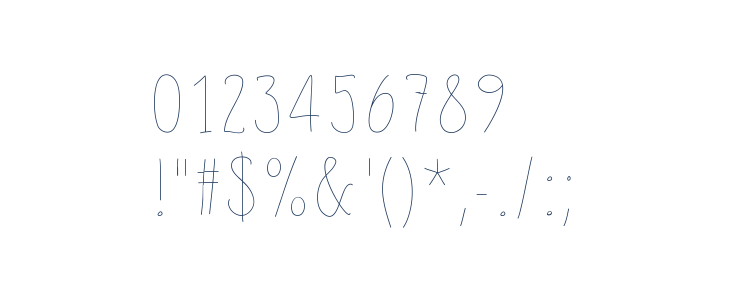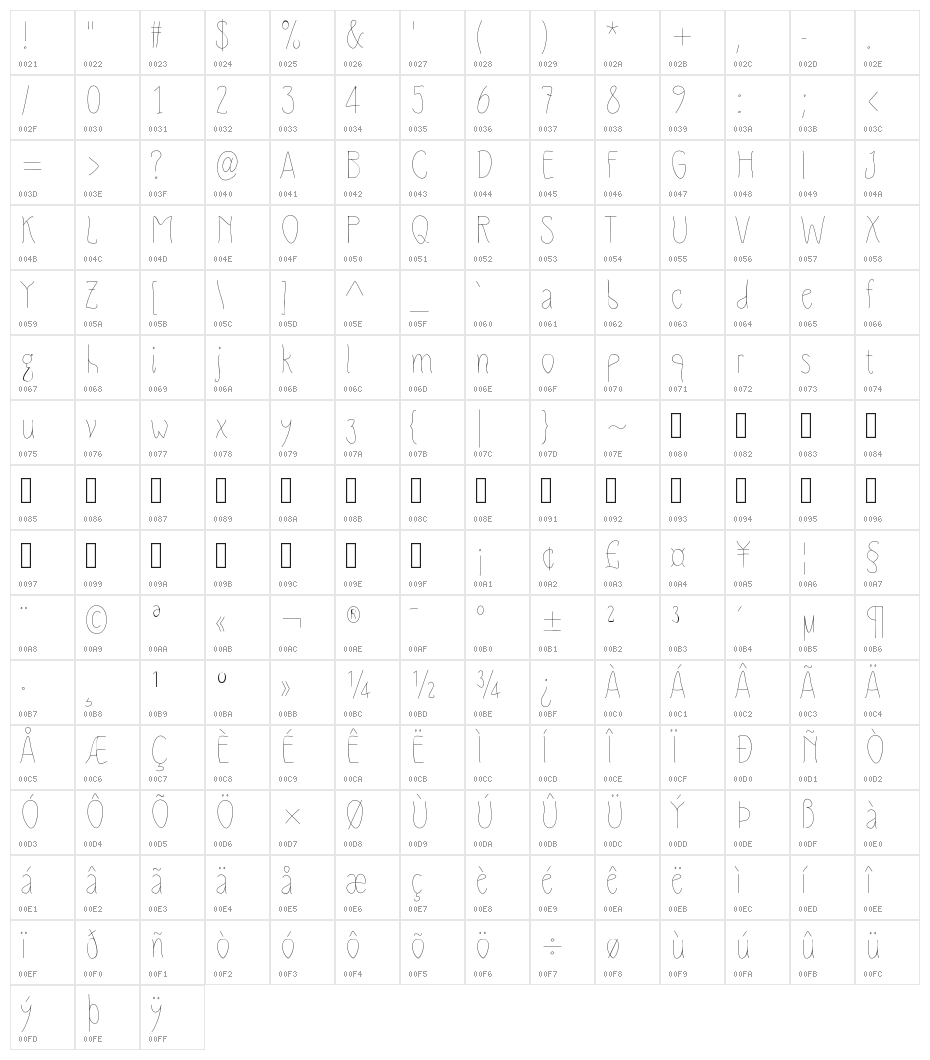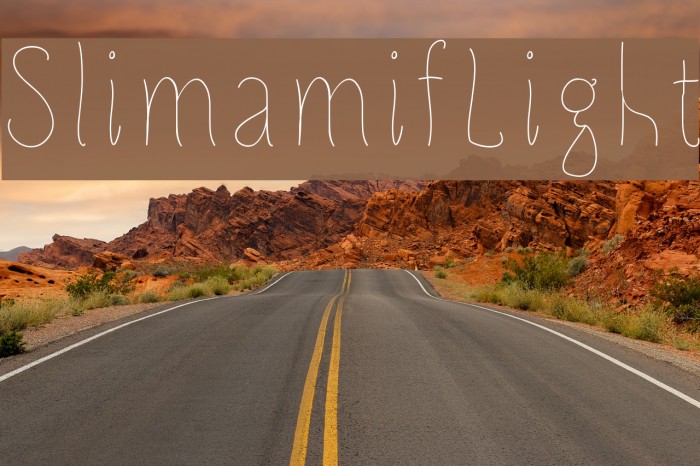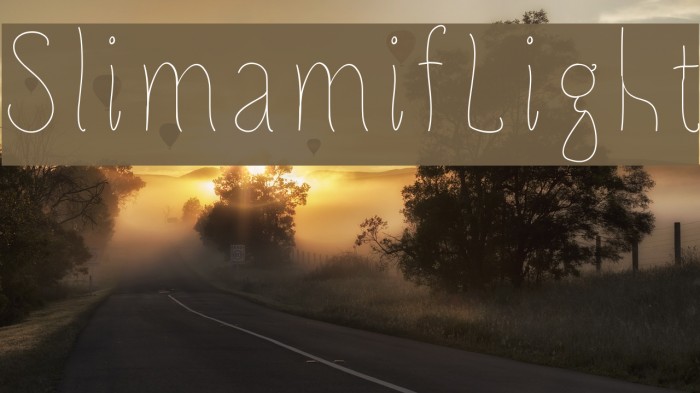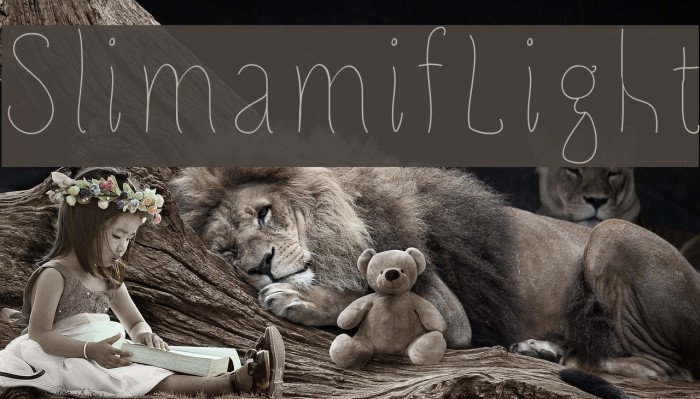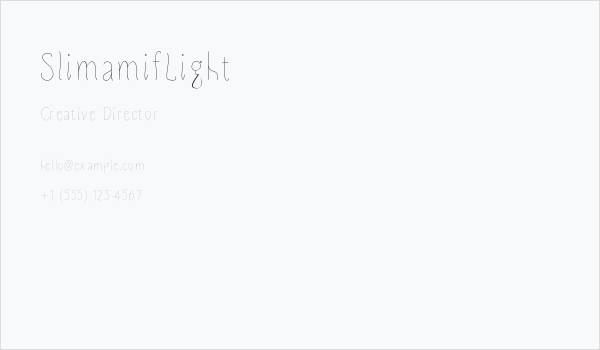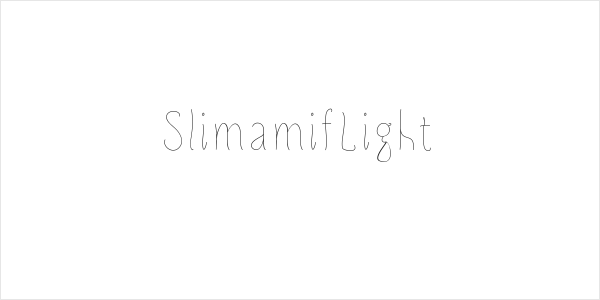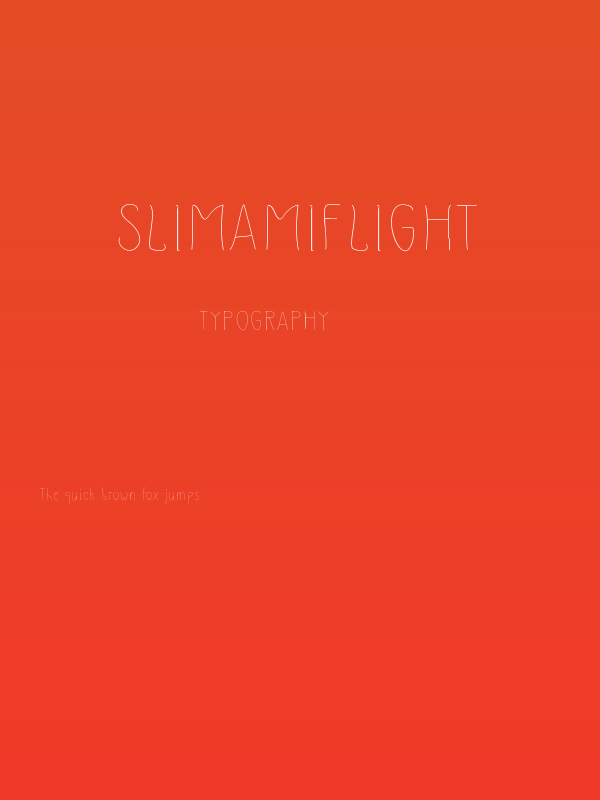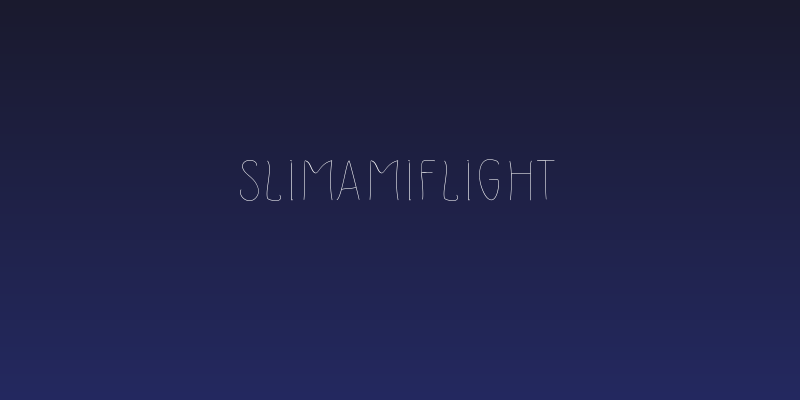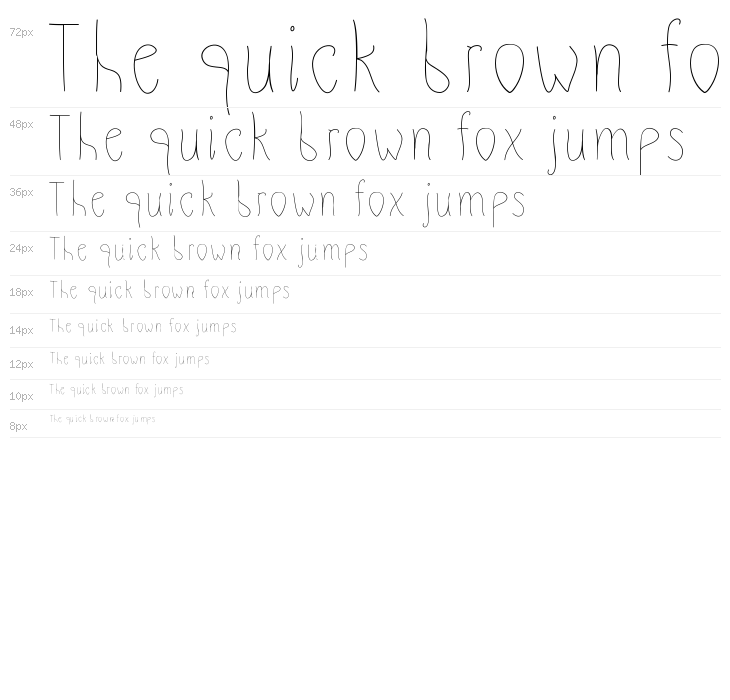
SlimamifLight Font
SlimamifLight Description
This font features a delicate and slender design, characterized by its thin, elongated strokes and a whimsical, handwritten style. The uppercase and lowercase letters maintain a consistent height, giving the font a uniform appearance. The characters are slightly irregular, adding a playful and informal touch. The numerals and special characters follow the same thin and airy aesthetic, making them blend seamlessly with the alphabet. This font's overall lightness and elegance make it suitable for projects that require a personal and approachable feel.
| Proposed Projects | Ideal for greeting cards, personal invitations, children's book illustrations, and casual branding projects. |